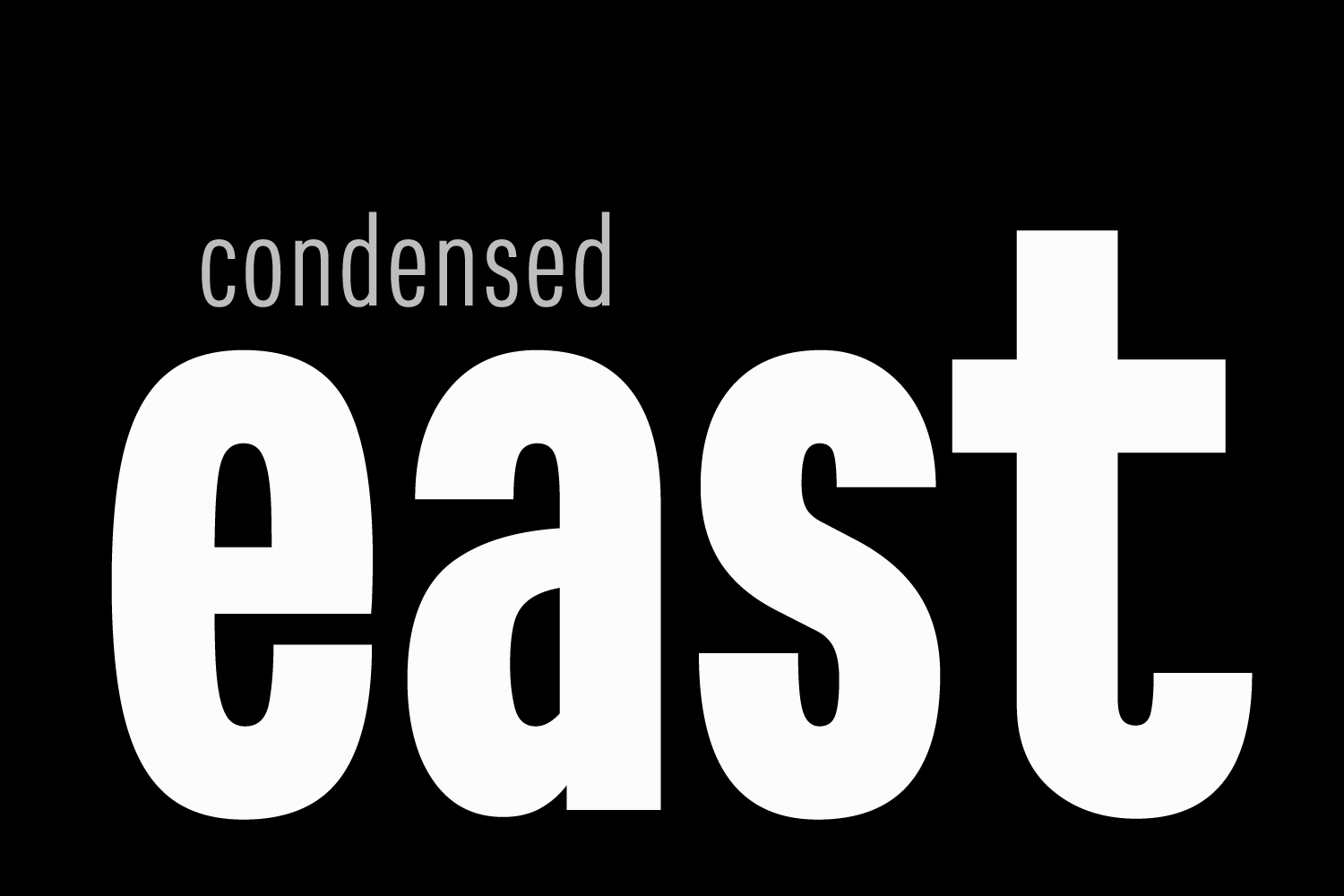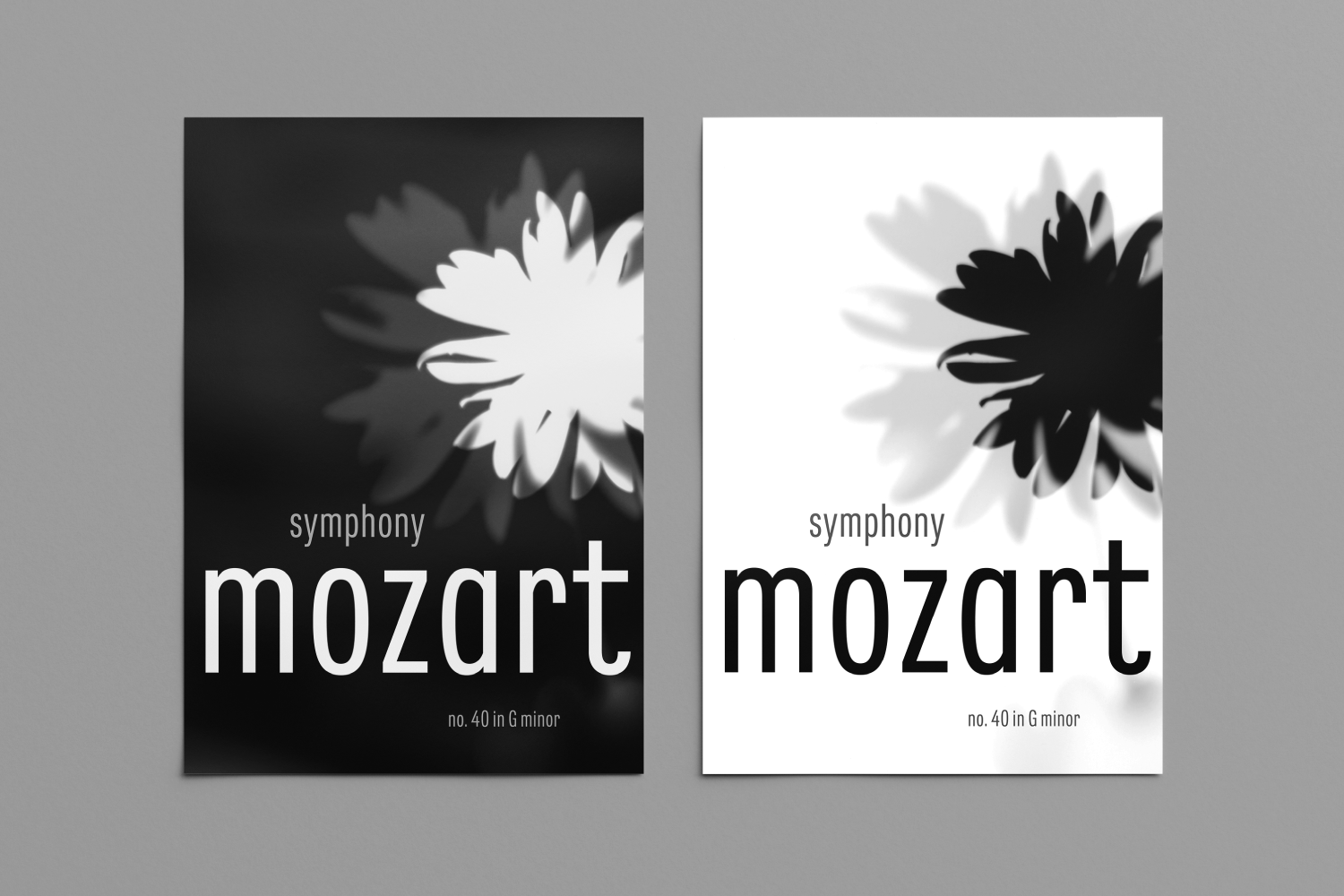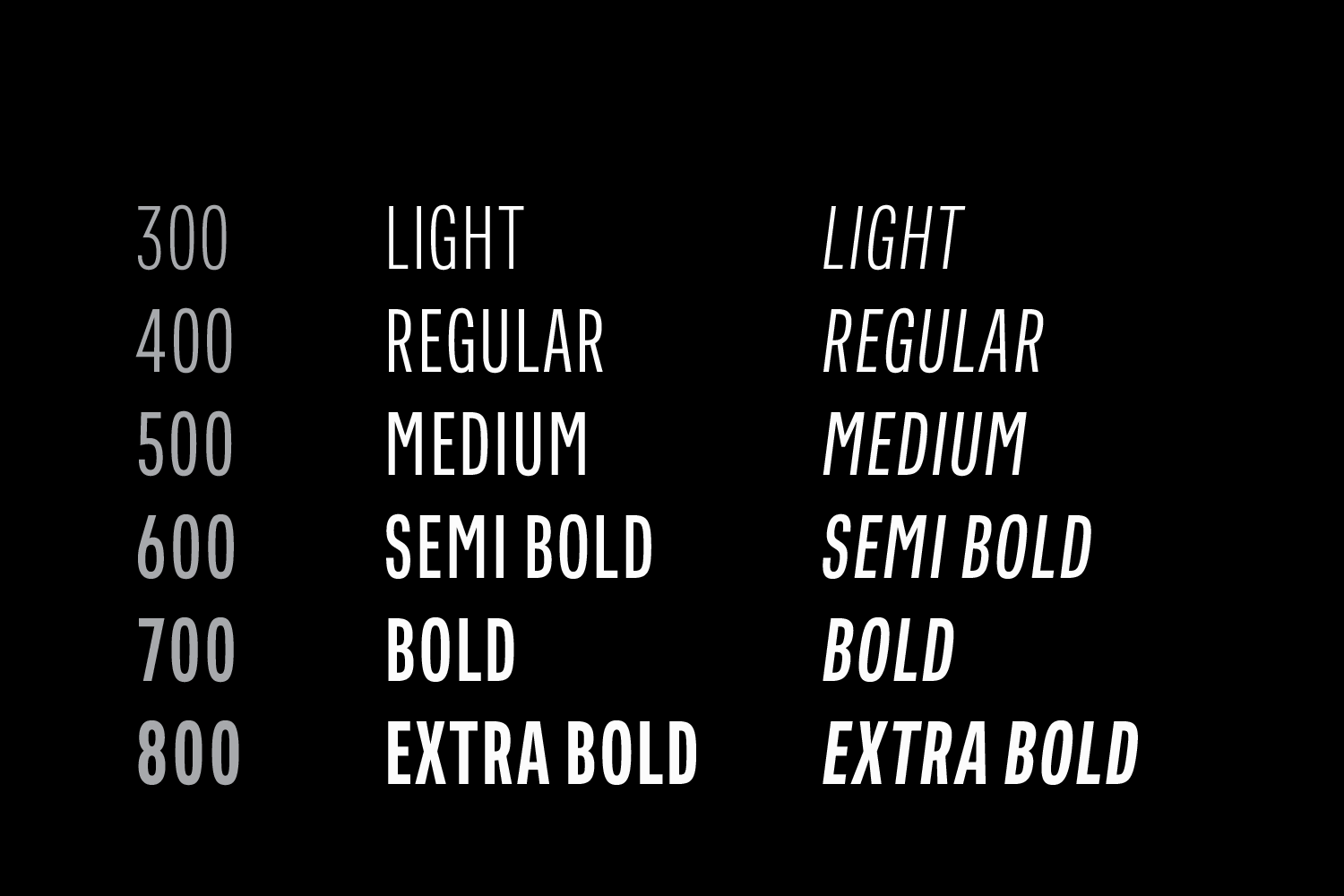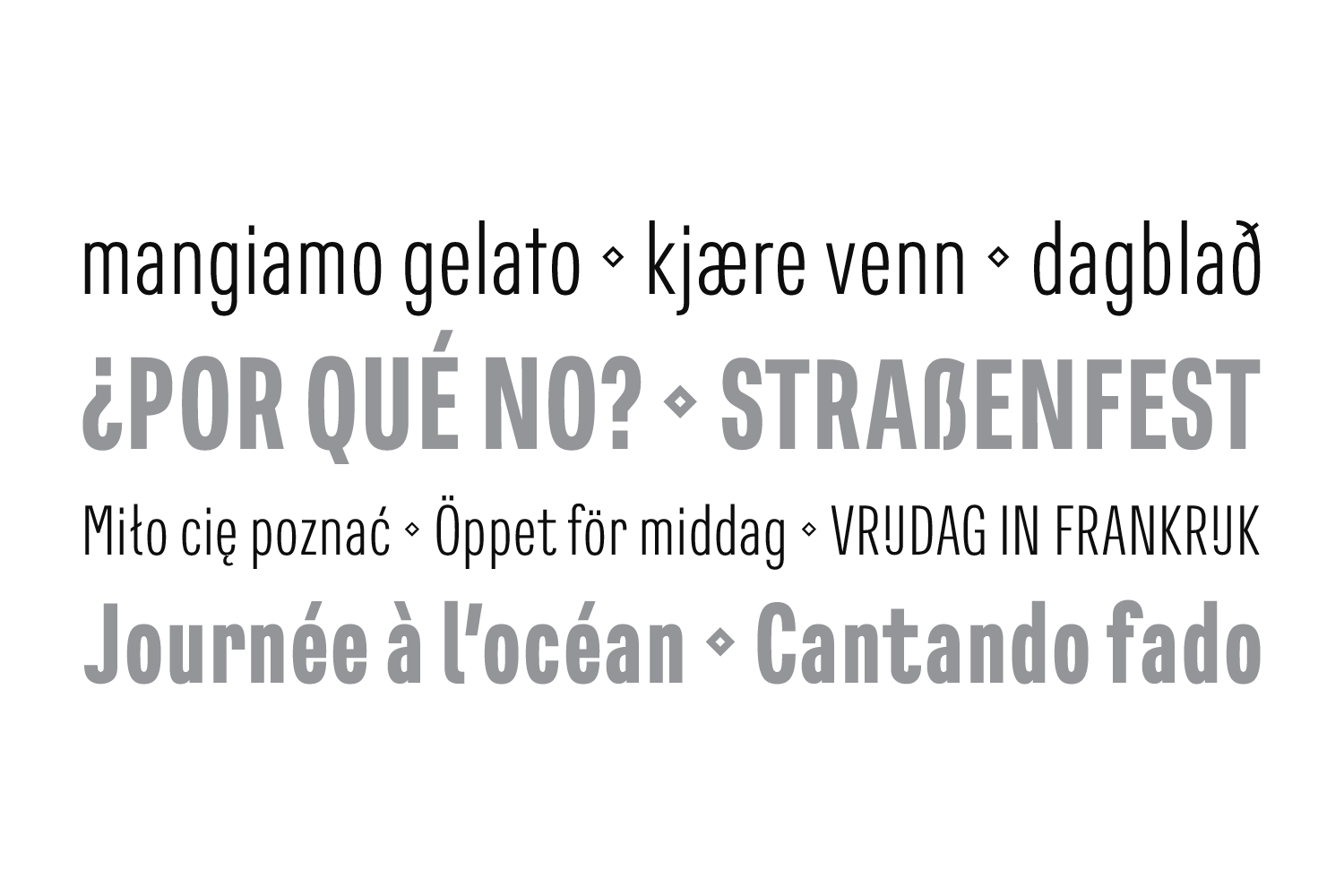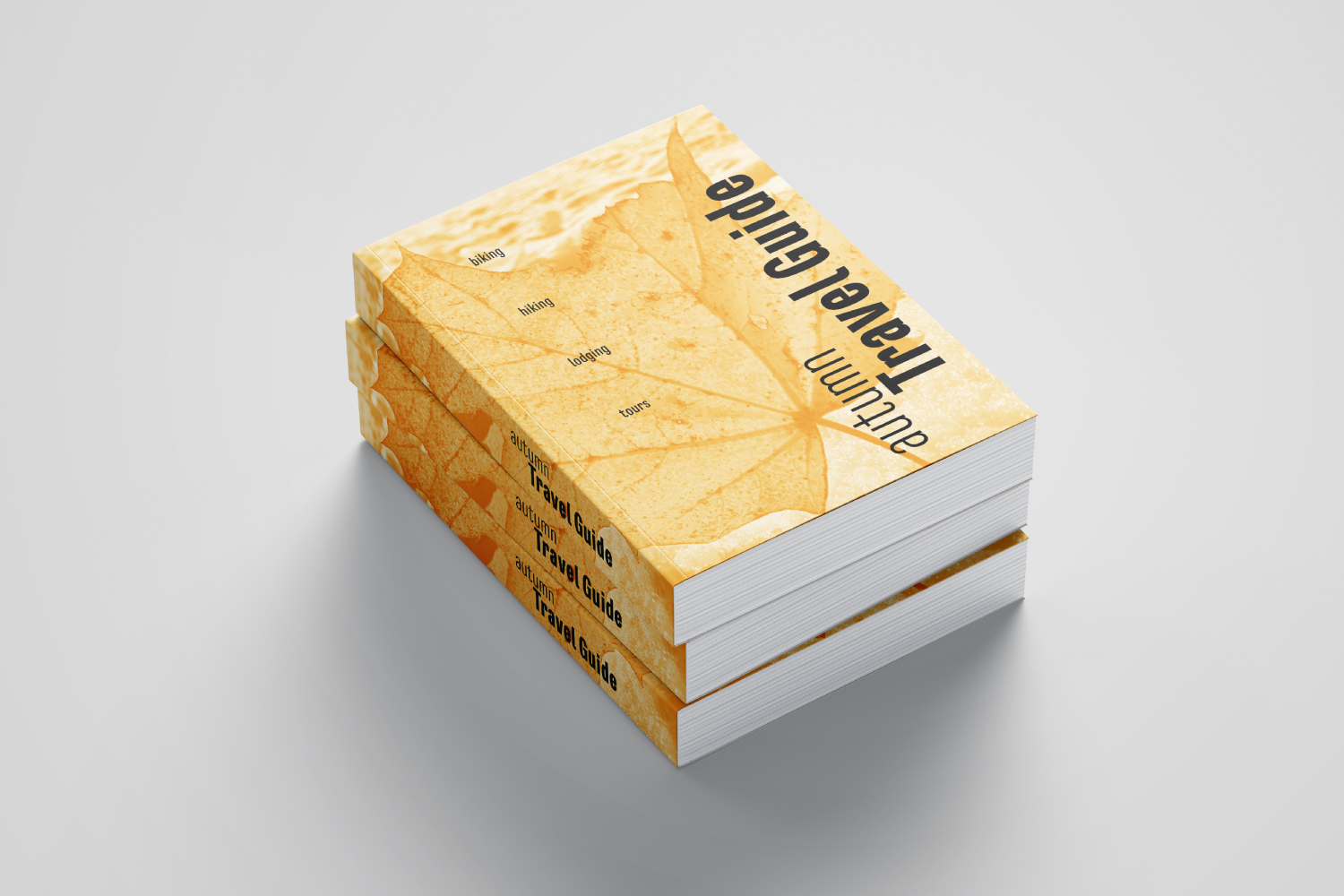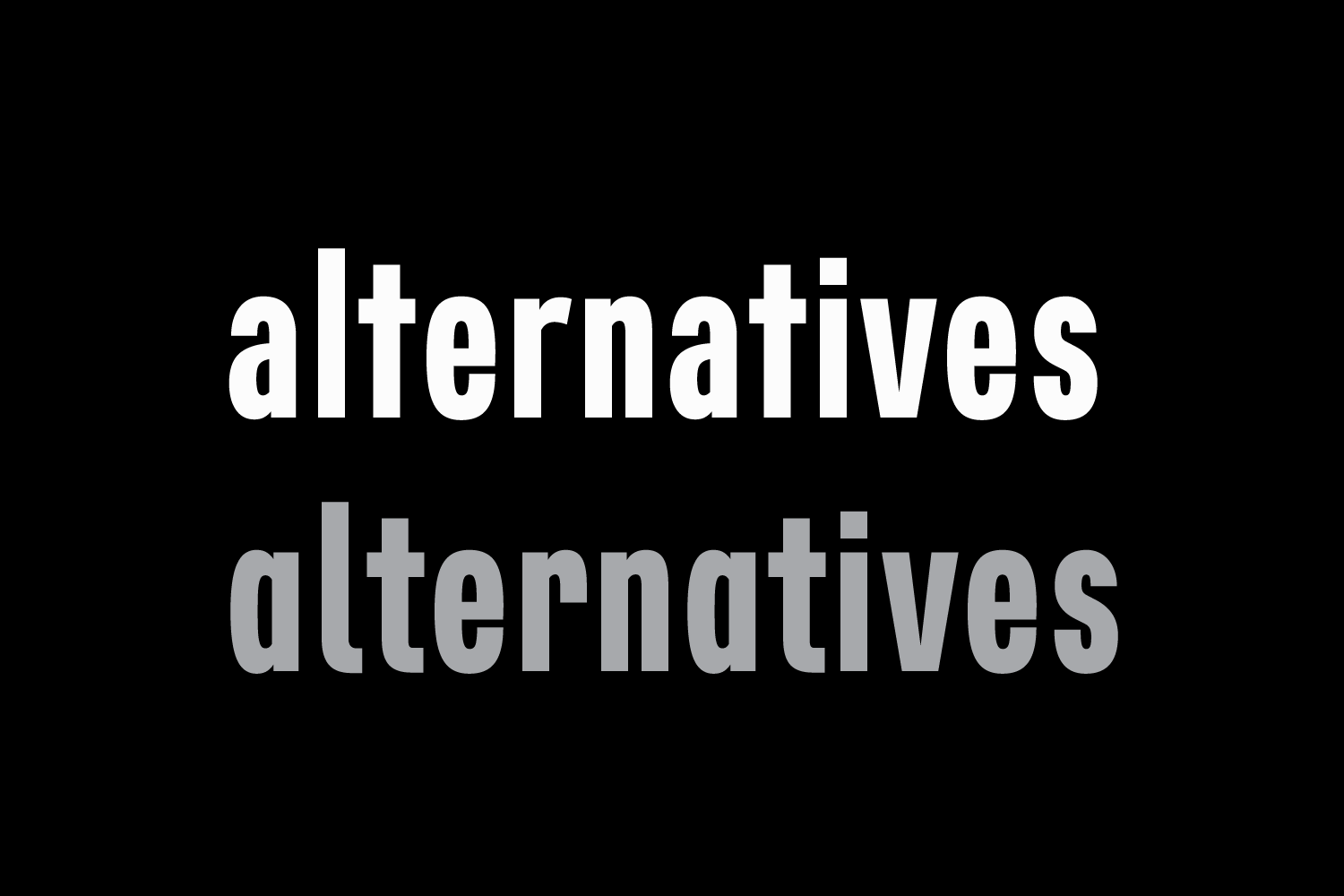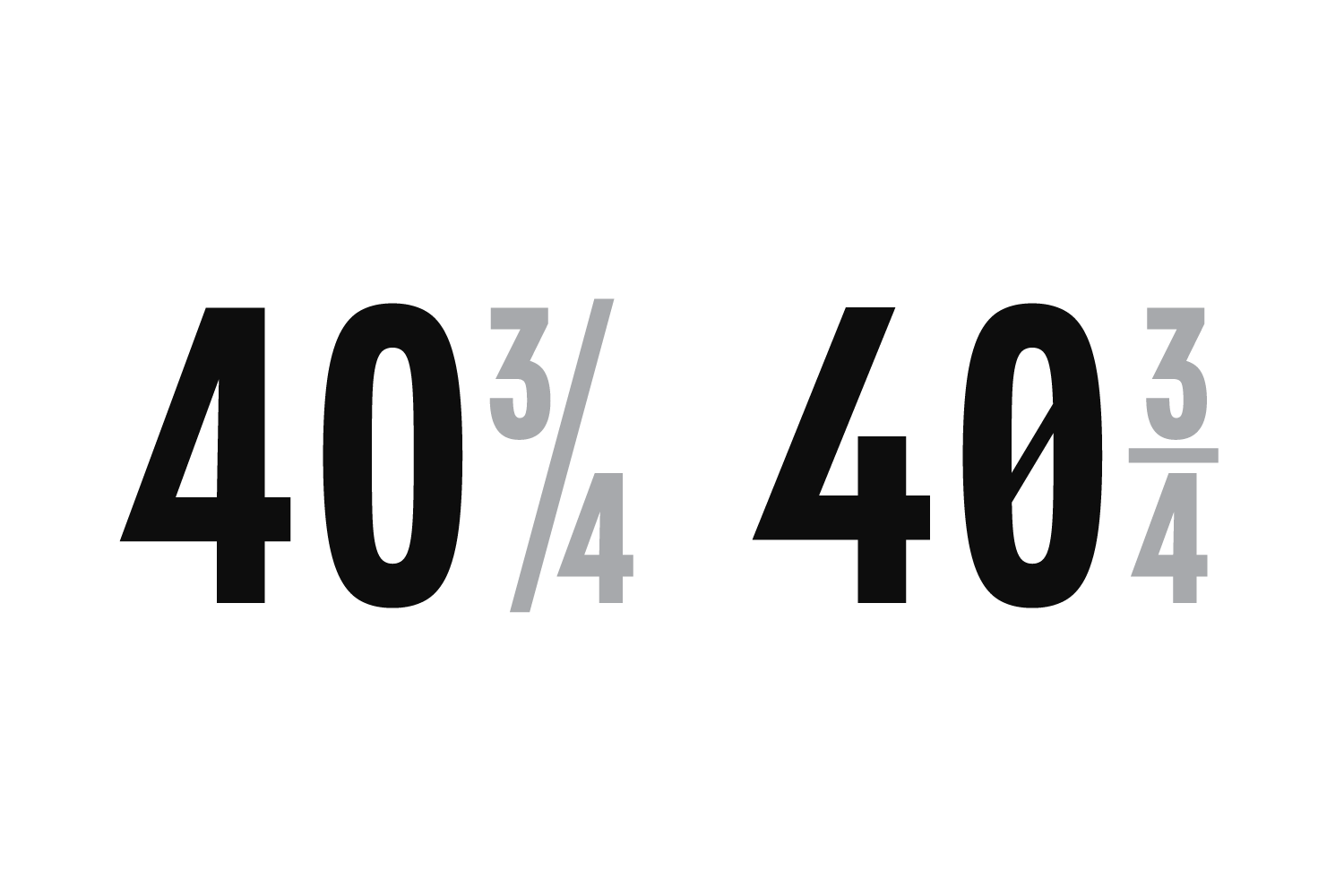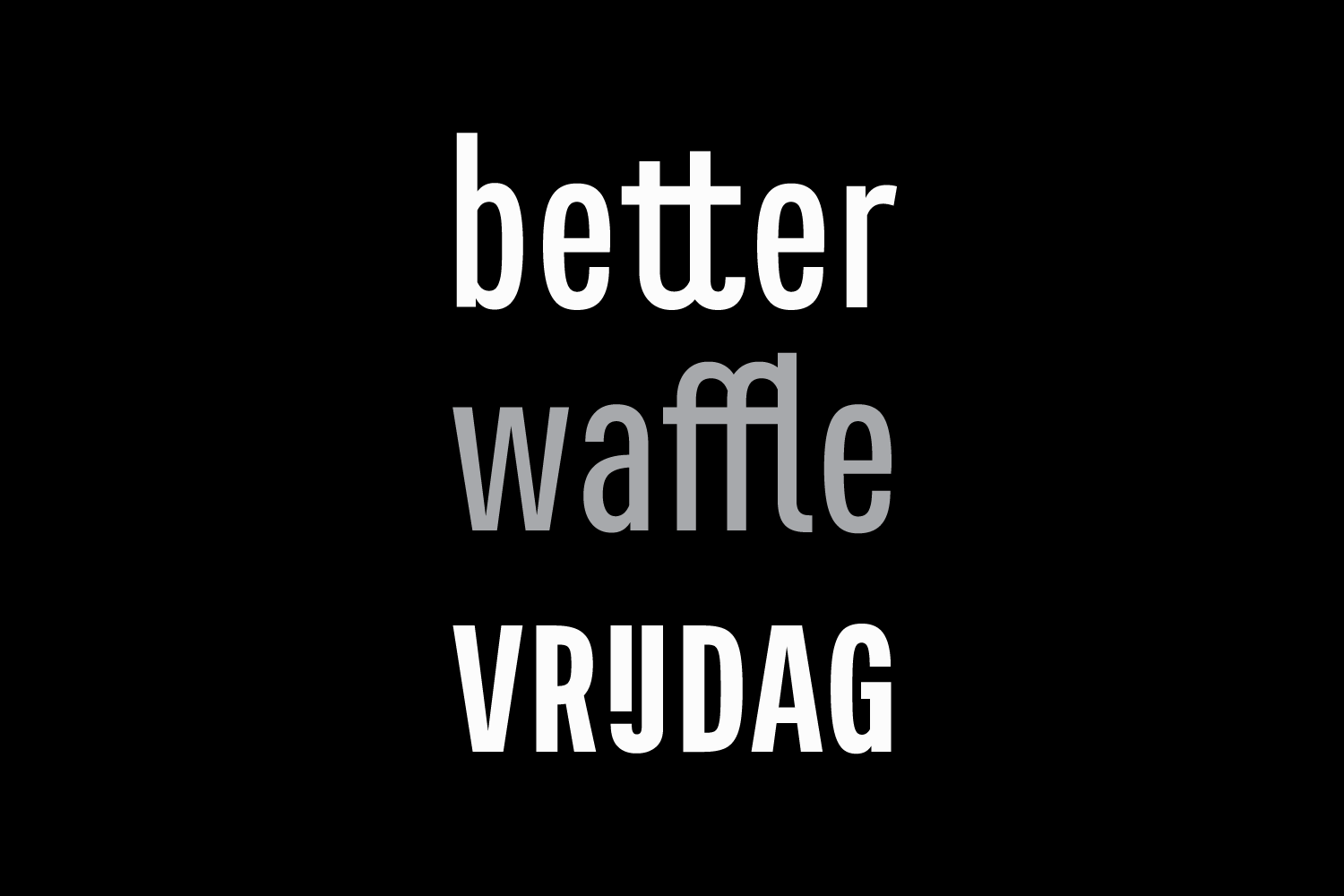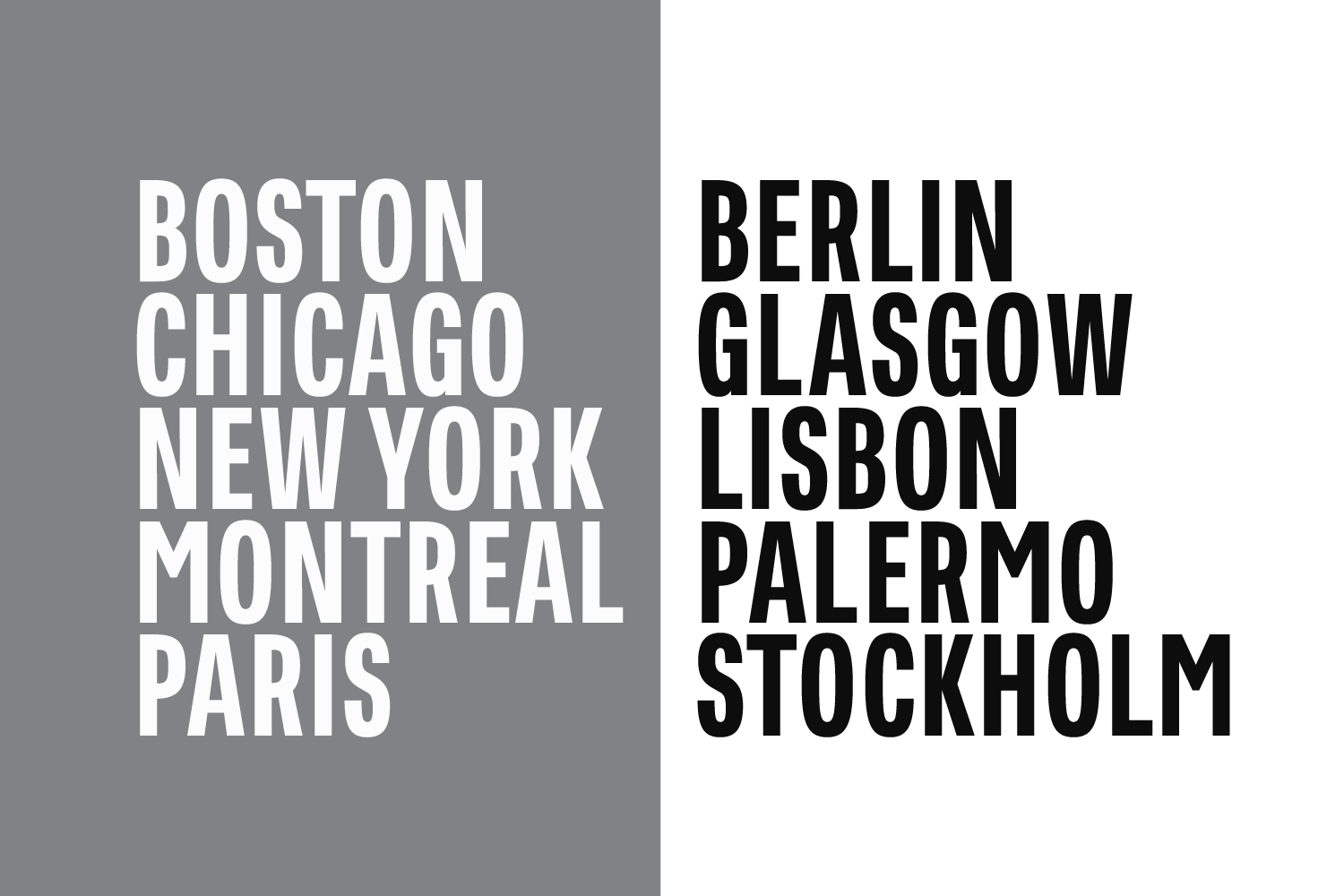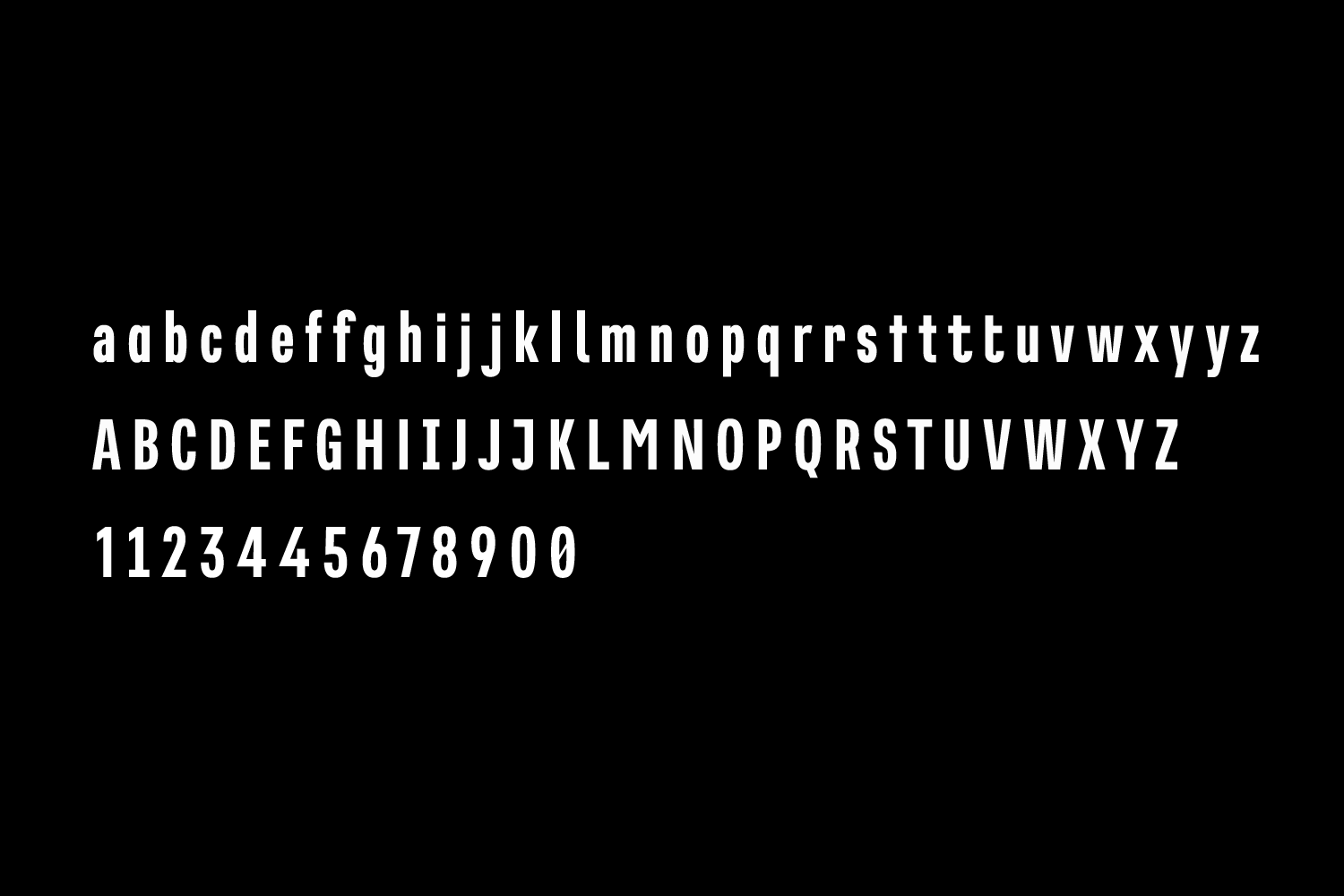
From Tarallo Design
The light weight has excellent legibility at small sizes. The Extra Bold weight will capture attention. East is versatile, but would be a good choice for film titles, labels, publications, or any context where space is limited.
The OpenType features include stylistic sets, a one-story 'a', hooked letters, seriffed uppercase 'I' and '1', a slashed zero, raised colon and punctuation (Spanish), German eszett, ligatures, and vertical fractions.